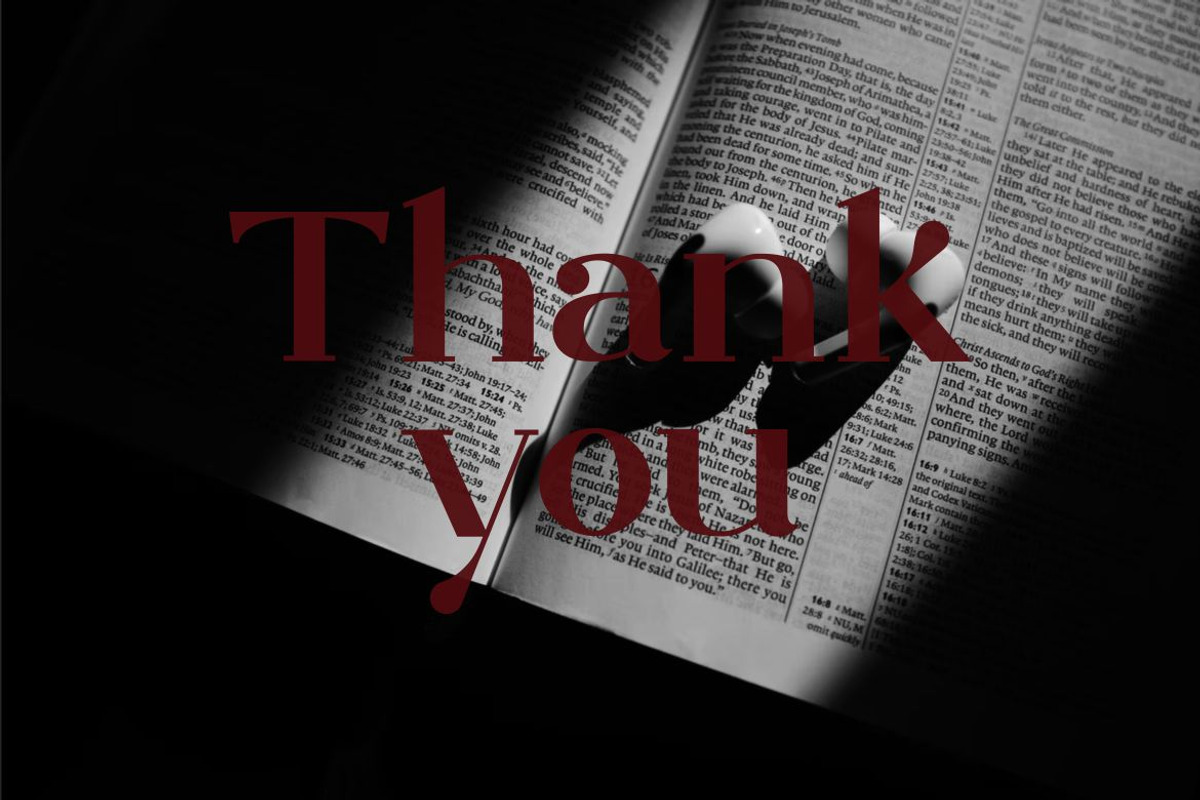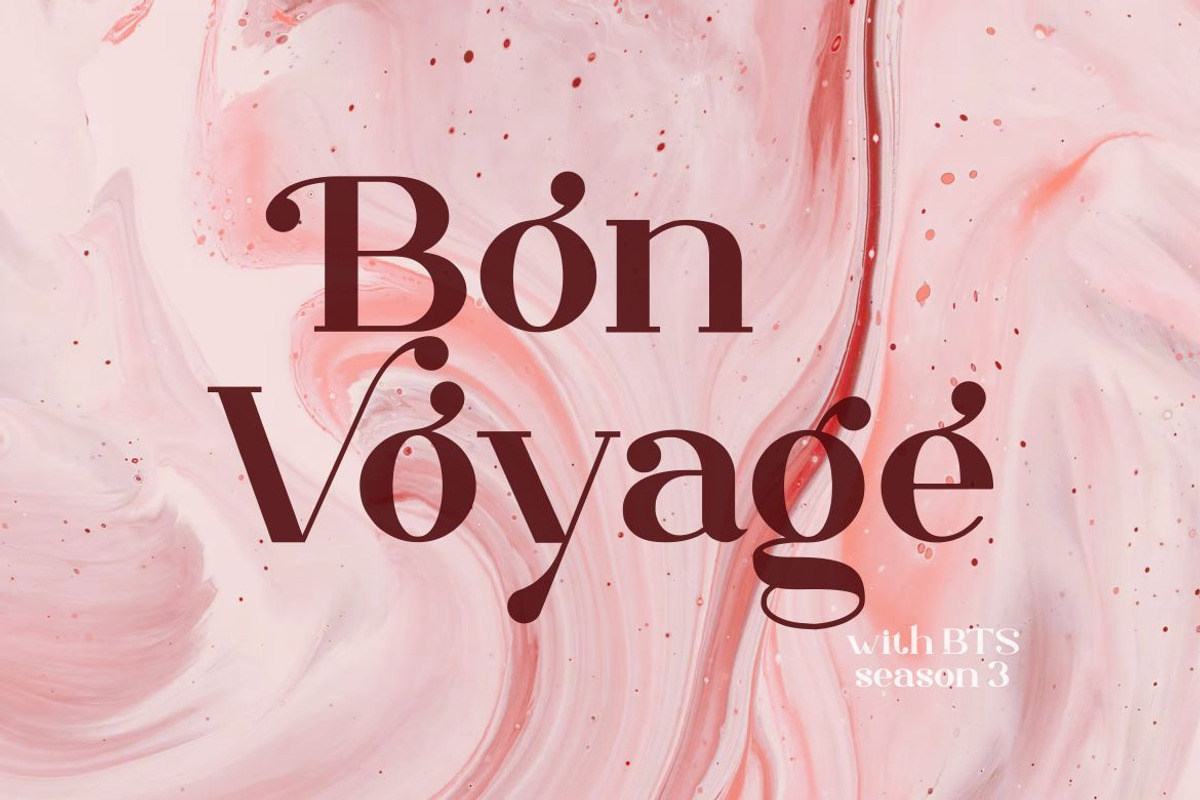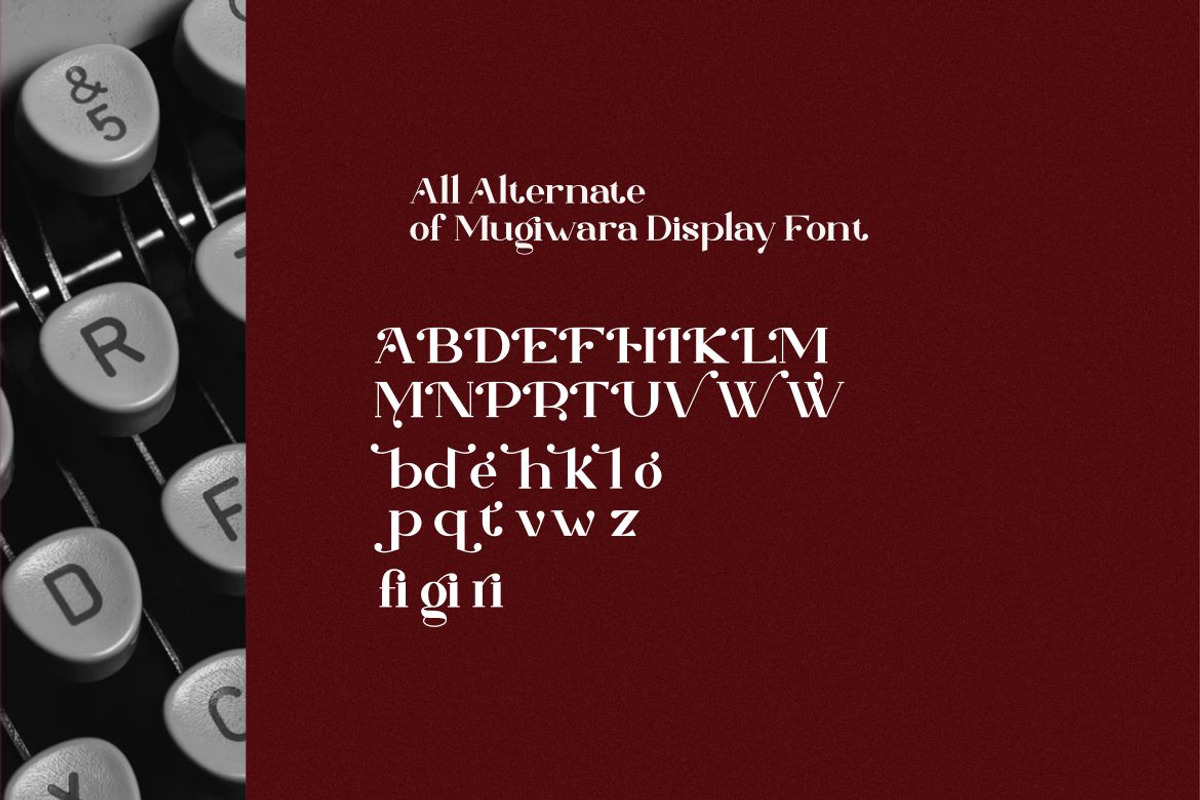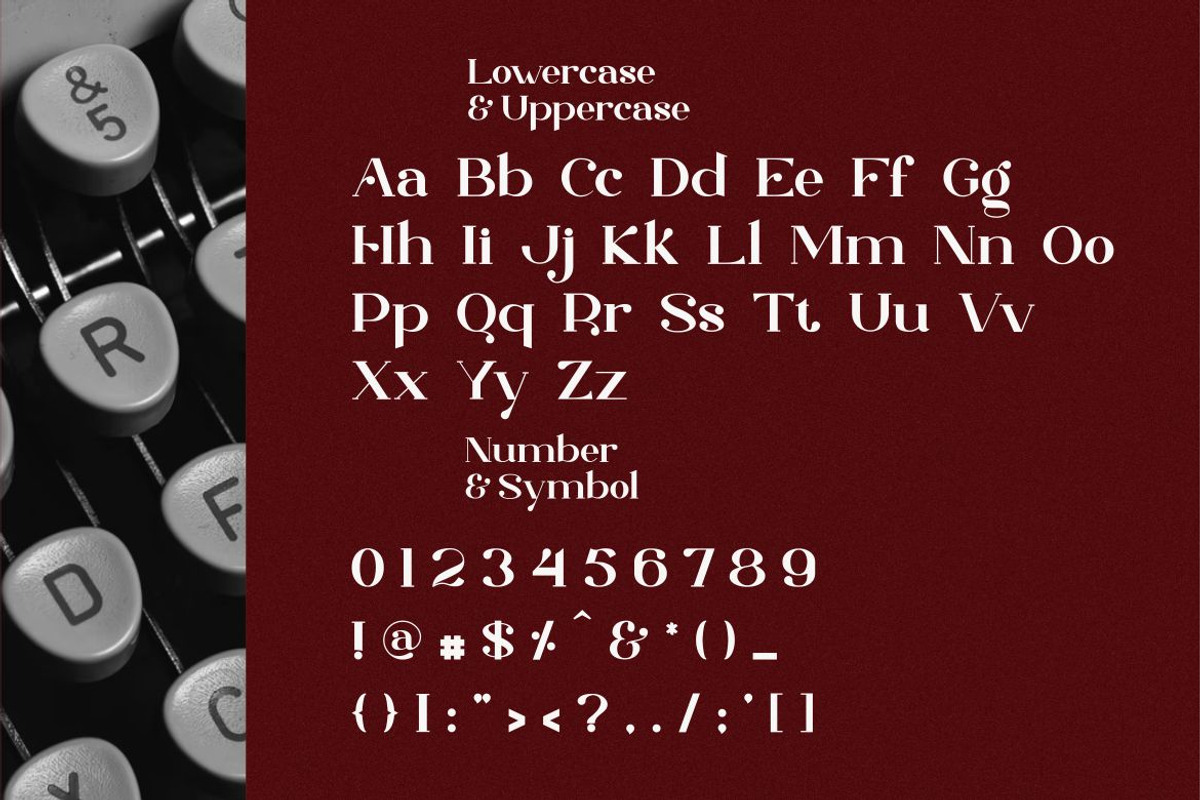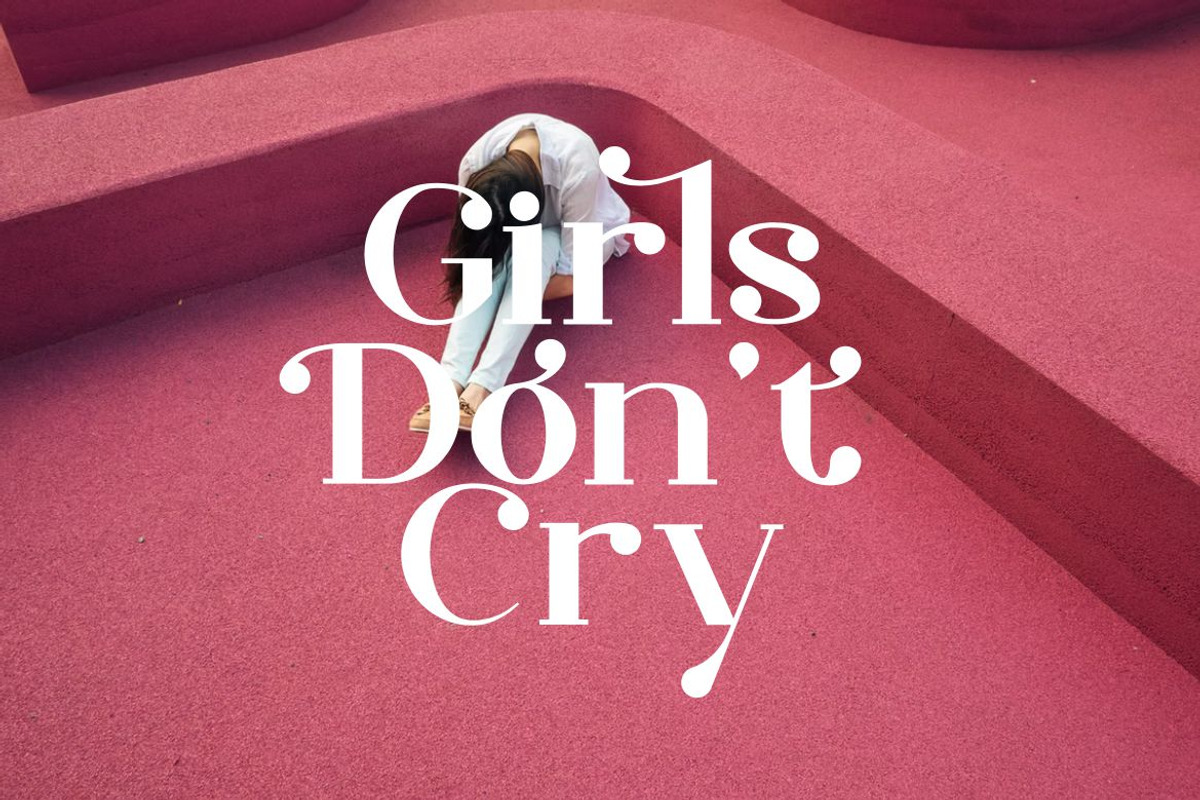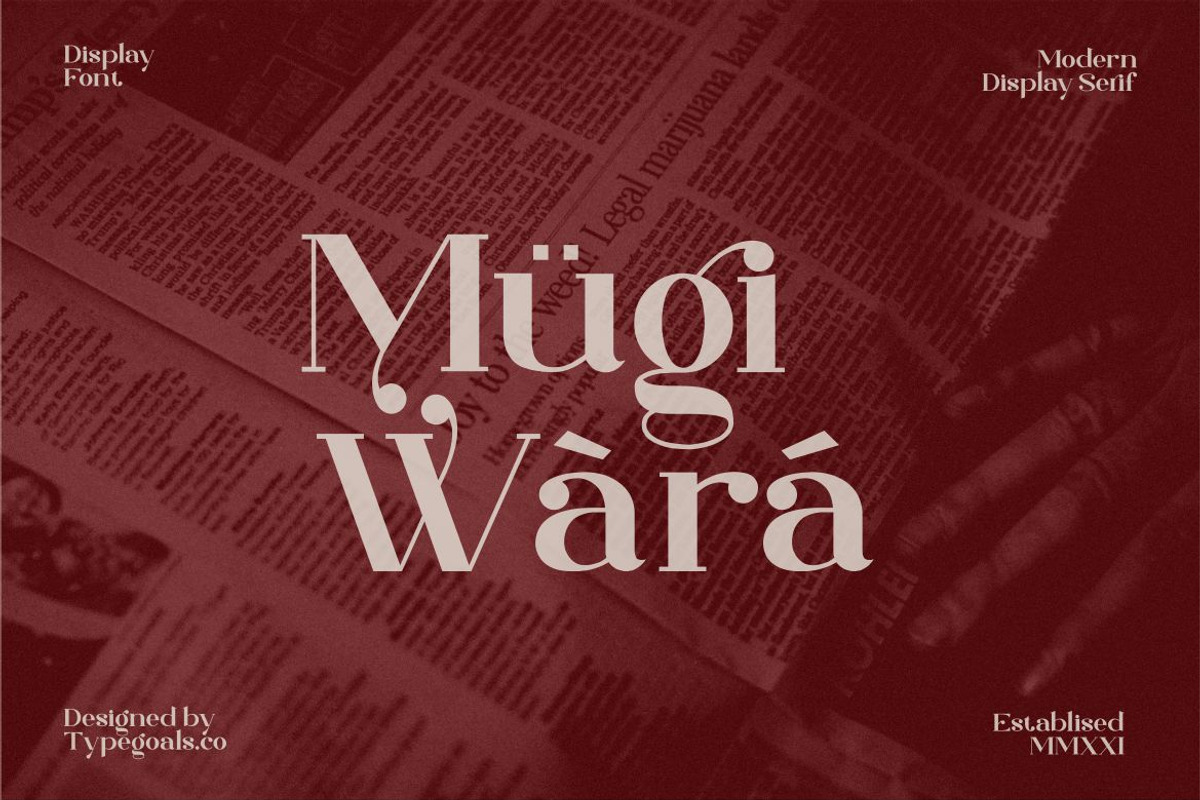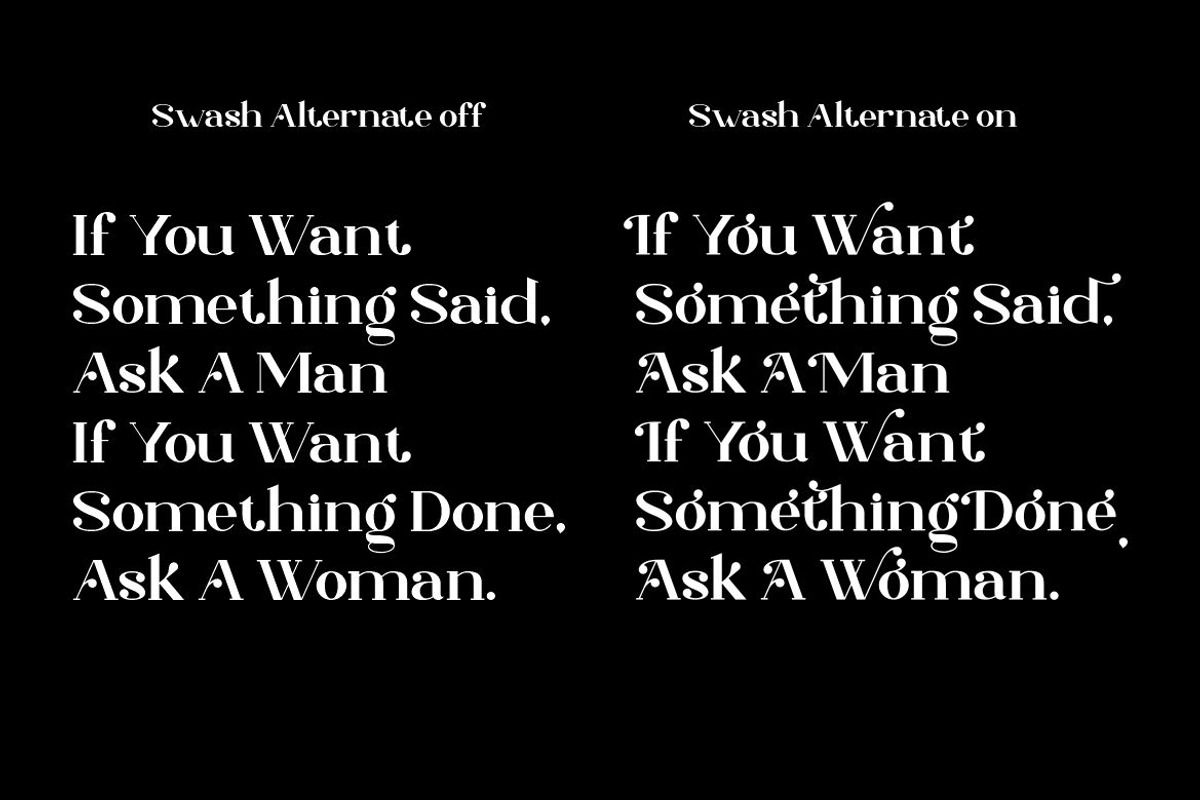
Mugiwara Swashy Serif
Mugiwara is a stylish font It has both modern and retro look - clear, modern and fun. Perfect if you need a dose of fun in your project.